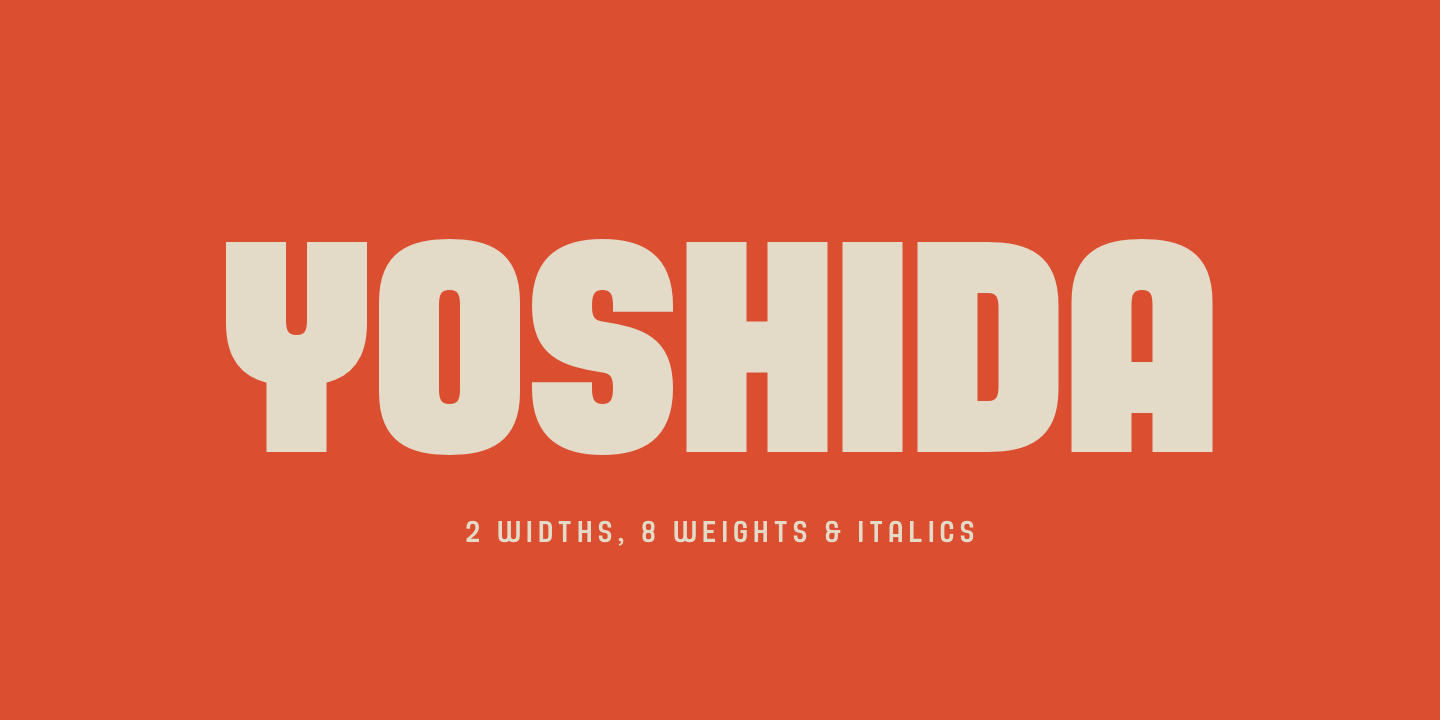
Yoshida Sans Font is perfect for modern projects including tech company branding, app interfaces, website headers, digital magazines, minimalist posters, corporate presentations, clean logos, and contemporary editorial designs. This sleek typeface brings modern functionality and visual clarity to any design project.
What makes Yoshida Sans Font exciting is its perfect fusion of Japanese design philosophy with contemporary Western typography. The clean geometric forms feature subtle humanist touches that create warmth while maintaining crisp readability. This font embodies the principle of functional beauty, offering exceptional legibility across digital and print media while delivering a distinctly modern aesthetic.
The Yoshida Sans Font family typically includes multiple weights from thin to black, with corresponding italic styles for each weight. The complete family features comprehensive character sets including uppercase and lowercase letters, numerals, punctuation, and extensive language support. Premium versions often include stylistic alternates and advanced OpenType features for enhanced typographic control.
Whether you're designing for tech startups, modern publications, or contemporary brands, Yoshida Sans Font Free Download delivers the clean sophistication that today's design demands. Its exceptional versatility makes it equally effective for large display applications and extended reading text. The font's balanced proportions and careful spacing ensure optimal performance across all media, making it an indispensable resource for designers creating forward-thinking, user-friendly visual communications.